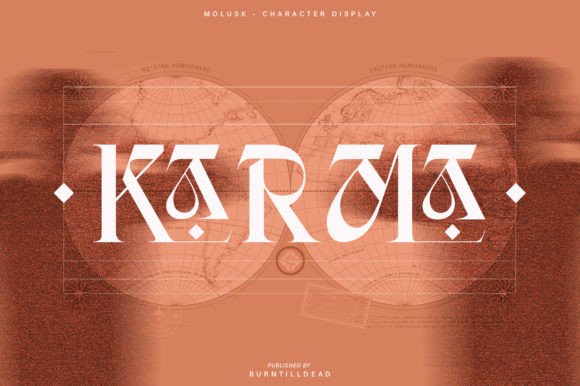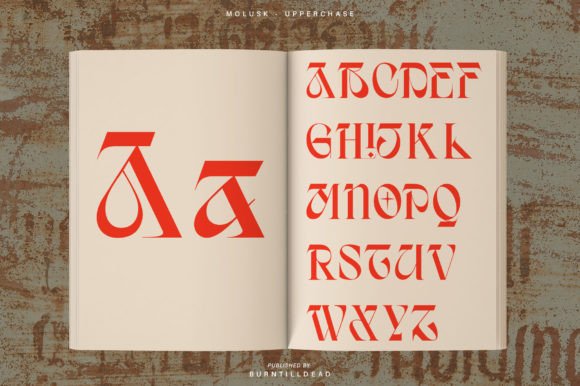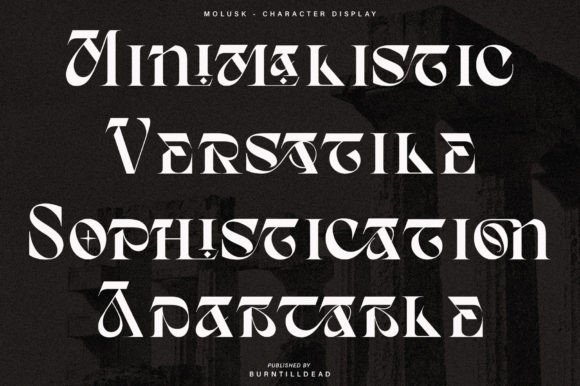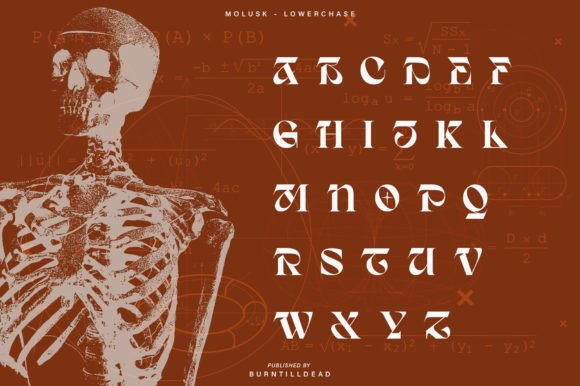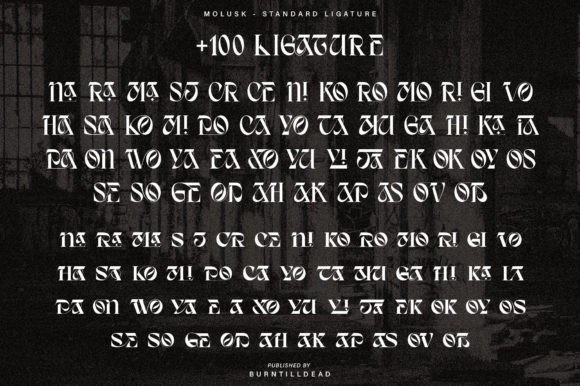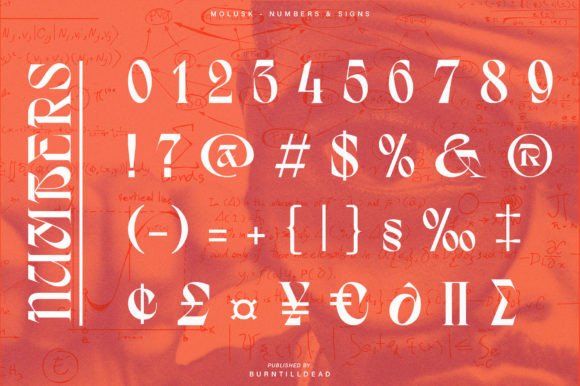
Introduction to Molusk Font
Have you ever found yourself stuck in a creative rut, struggling to find the perfect font to bring your design to life? I’m sure many of us have been there. That’s why we’re excited to introduce you to Molusk Font, a modern contemporary typeface that’s sure to take your projects to the next level.
Designed with a focus on expressive character and high-quality typography, Molusk Font is a valuable resource for designers looking to create a lasting impression. Whether you’re working on a high-profile campaign or a personal creative project, this versatile font is the perfect choice for any design need.
Key Features of Molusk Font
- High-quality design resource suitable for creative projects, offering a unique and stylish look.
- Features a transparent background, making it easy to overlay on any image or design element.
- Designed with precision, ensuring a crisp and clear display at resolutions up to 300 DPI.
- Perfect for designers working on digital or print projects, including logos, typography, and graphics.
Honest Review: Molusk Font
I recently stumbled upon the Molusk Font, and I must say it’s been a great addition to my design resource collection. This high quality font is perfect for any creative project that requires a unique touch.
- ✨ The Molusk Font offers a transparent background, making it easy to customize and integrate into any design.
- ✨ The font is highly versatile, suitable for a wide range of creative projects, from digital art to print materials.
- ⚠️ The font may not be suitable for projects that require a more traditional or conservative aesthetic.
- ⚠️ Some users may find the font’s unique style to be too quirky or overwhelming for certain designs.
Overall, I’m impressed with the Molusk Font. Its high quality, transparent background, and free download make it an excellent choice for designers looking to add some creativity to their projects. While it may not be suitable for every design, it’s definitely worth checking out for those looking to push the boundaries of their creative work.
Tips for Getting the Most Out of Molusk Font
For the best results, use the Molusk Font on a transparent background or with a high-quality design resource. You can also use the Molusk Font in a creative project to add a unique touch.
Common Use Cases for Molusk Font
The Molusk Font is a versatile design resource that can be used in a variety of creative projects. Some common use cases include logos, branding, and digital graphics.